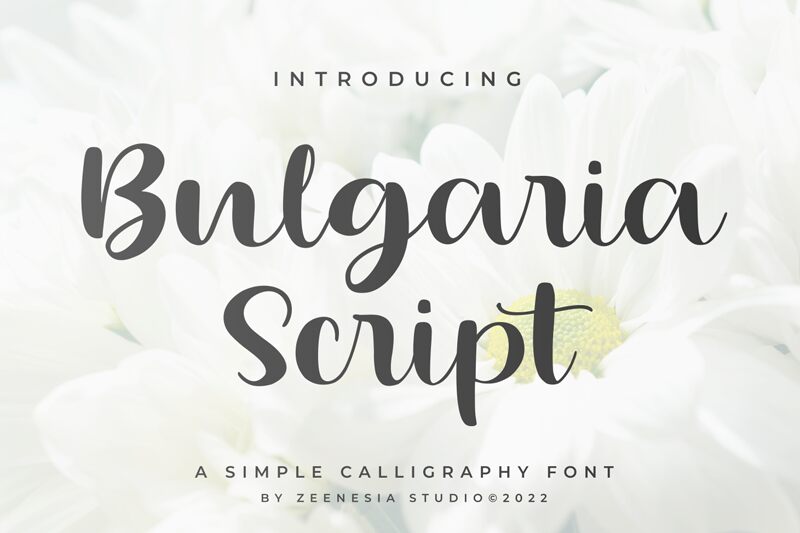
Bulgaria Script
Bulgaria Script font by Zeenesia Studio is a romantic free calligraphy font. With elegant and flowing lines, this cursive typeface evokes an expressive and graceful aesthetic. Designed to captivate the viewer, it balances artistic flair with clarity.
Use Bulgaria Script for wedding invitations, business cards, postcards, gift cards, labels designs, typography quotes and posters. A suitable choice also for book covers of novels especially and other genres too.